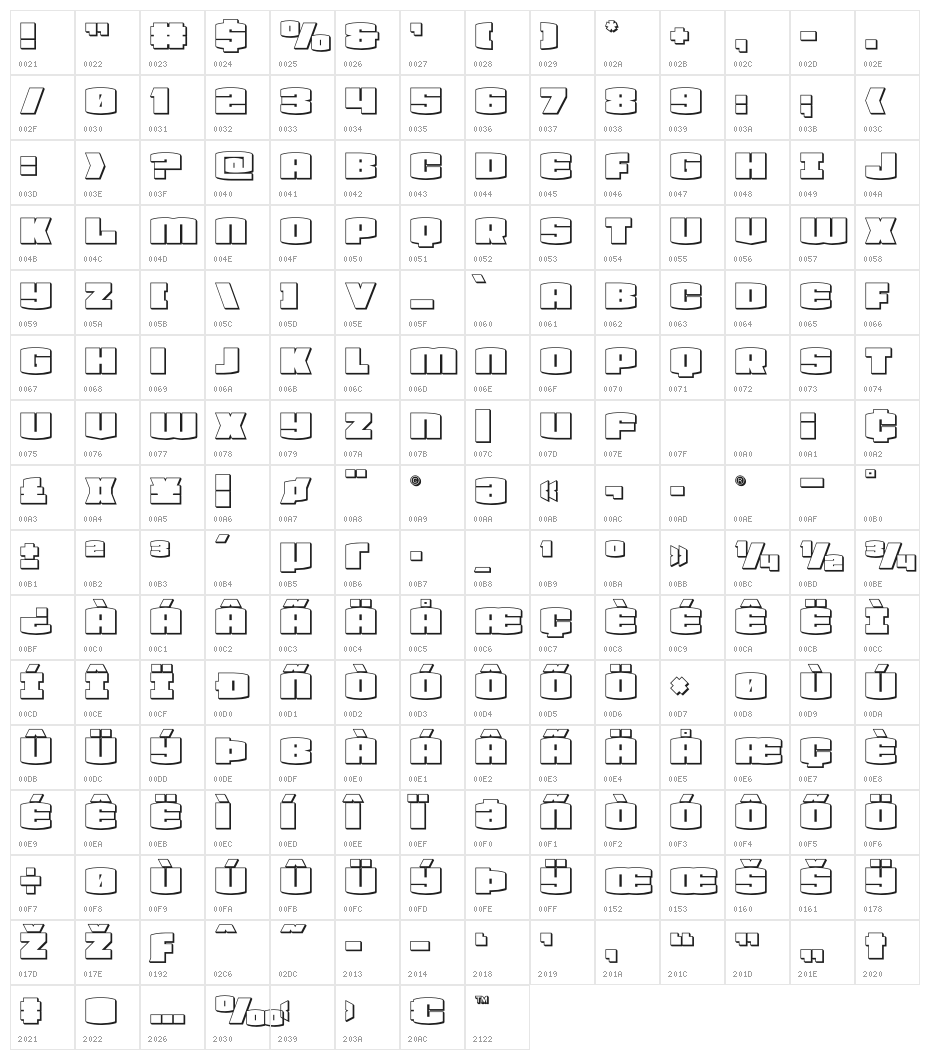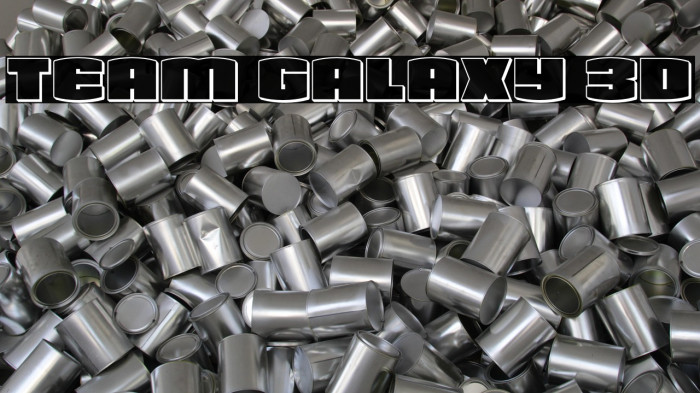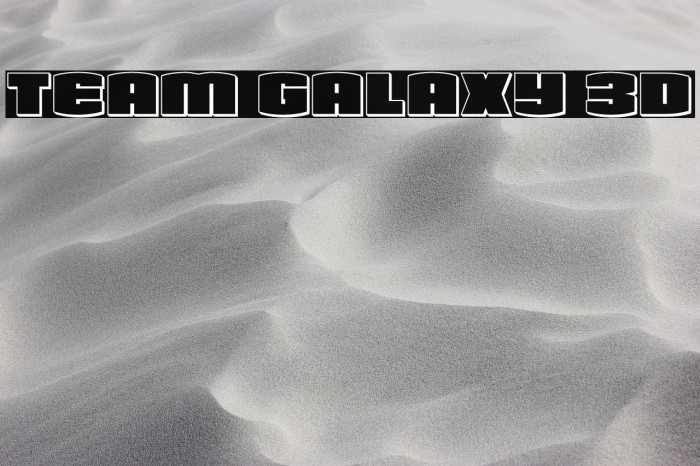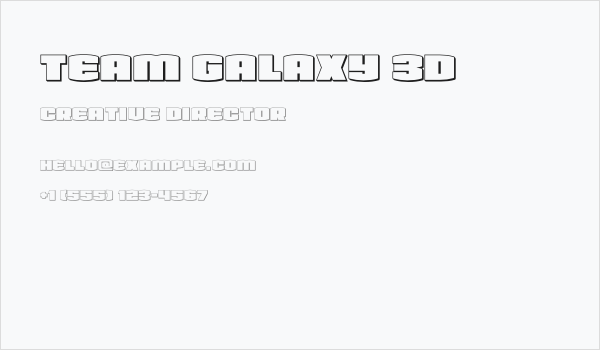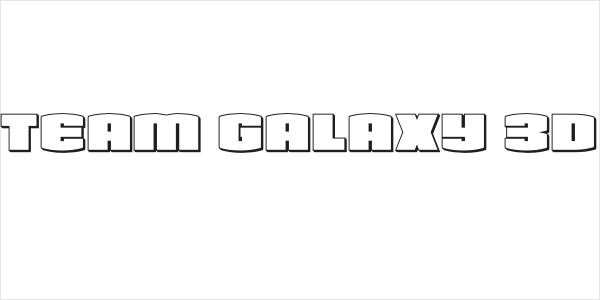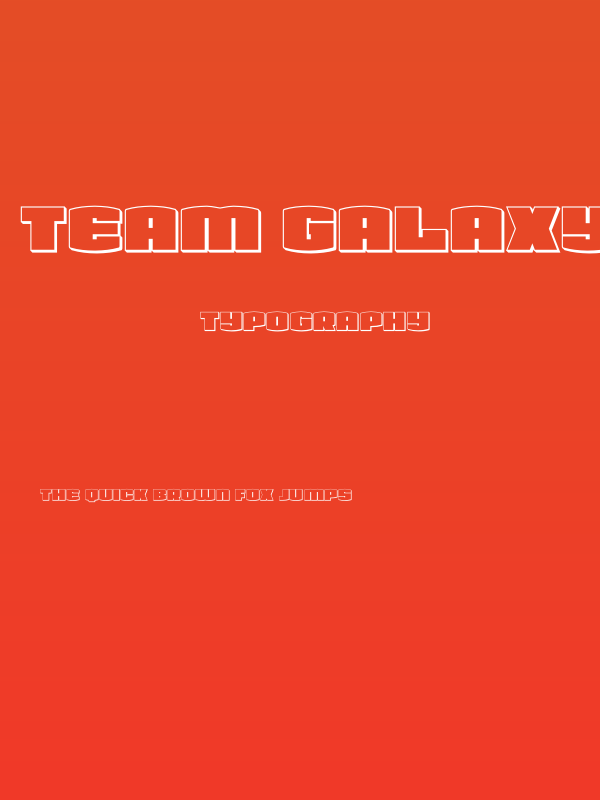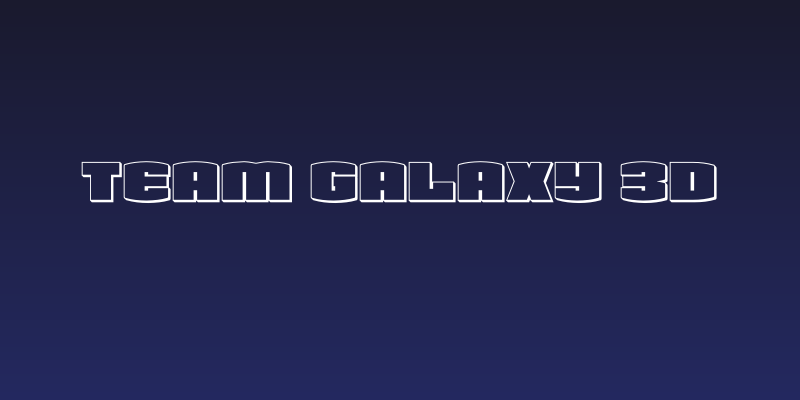
Team Galaxy 3D Font
Team Galaxy 3D Description
This font features a bold, three-dimensional style with a strong presence. The characters are blocky and geometric, with a distinct outline that gives them a standout appearance. The uppercase letters are uniform in height, while the numbers and special characters maintain the same boldness and dimensionality. The font's design is reminiscent of retro or futuristic themes, making it ideal for projects that require a striking and memorable visual impact. Its structured form and clear lines ensure readability while adding a unique flair.
Overall StyleFuturistic
Proposed ProjectsIdeal for video game titles, sci-fi movie posters, or any project needing a bold, futuristic look.